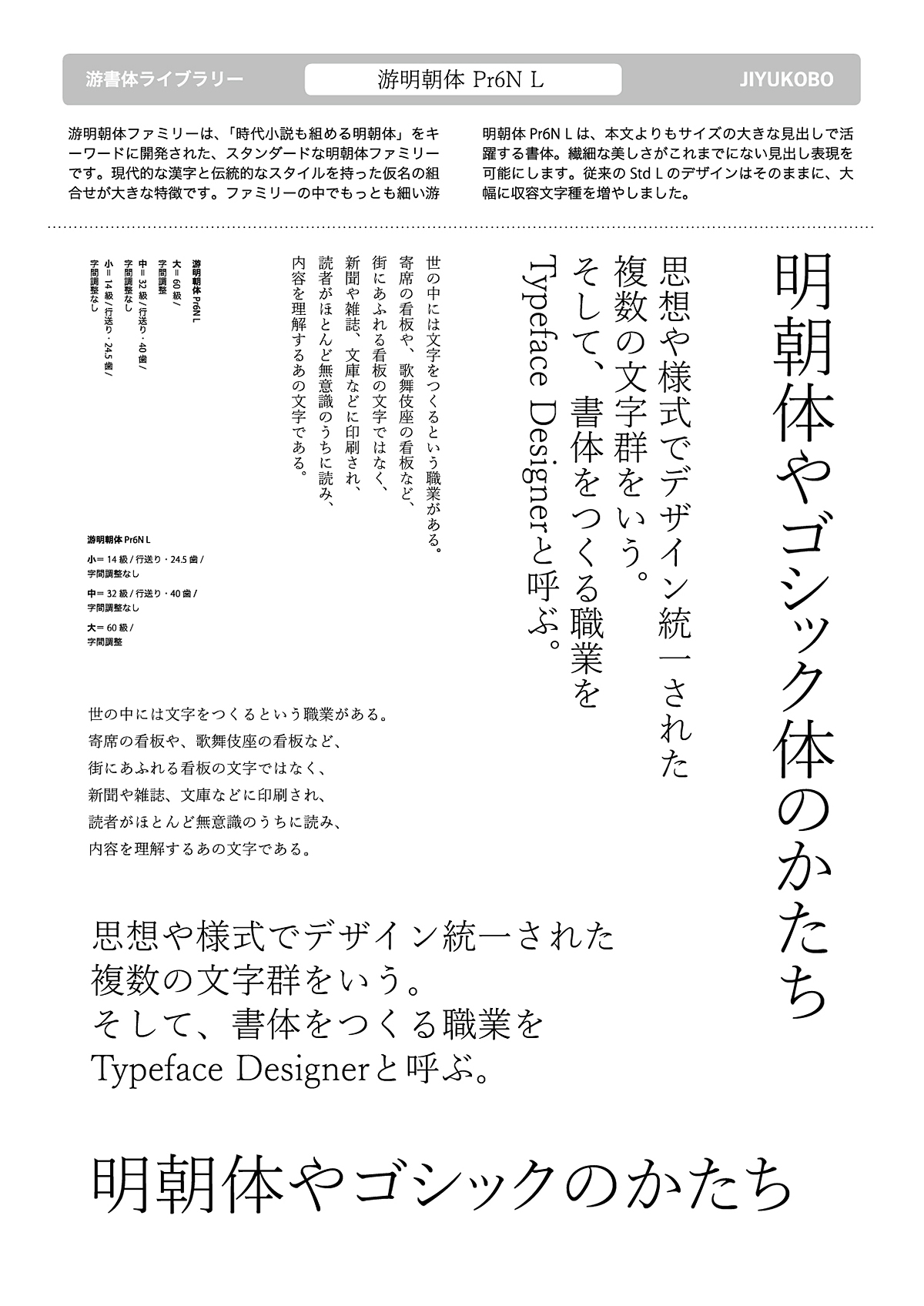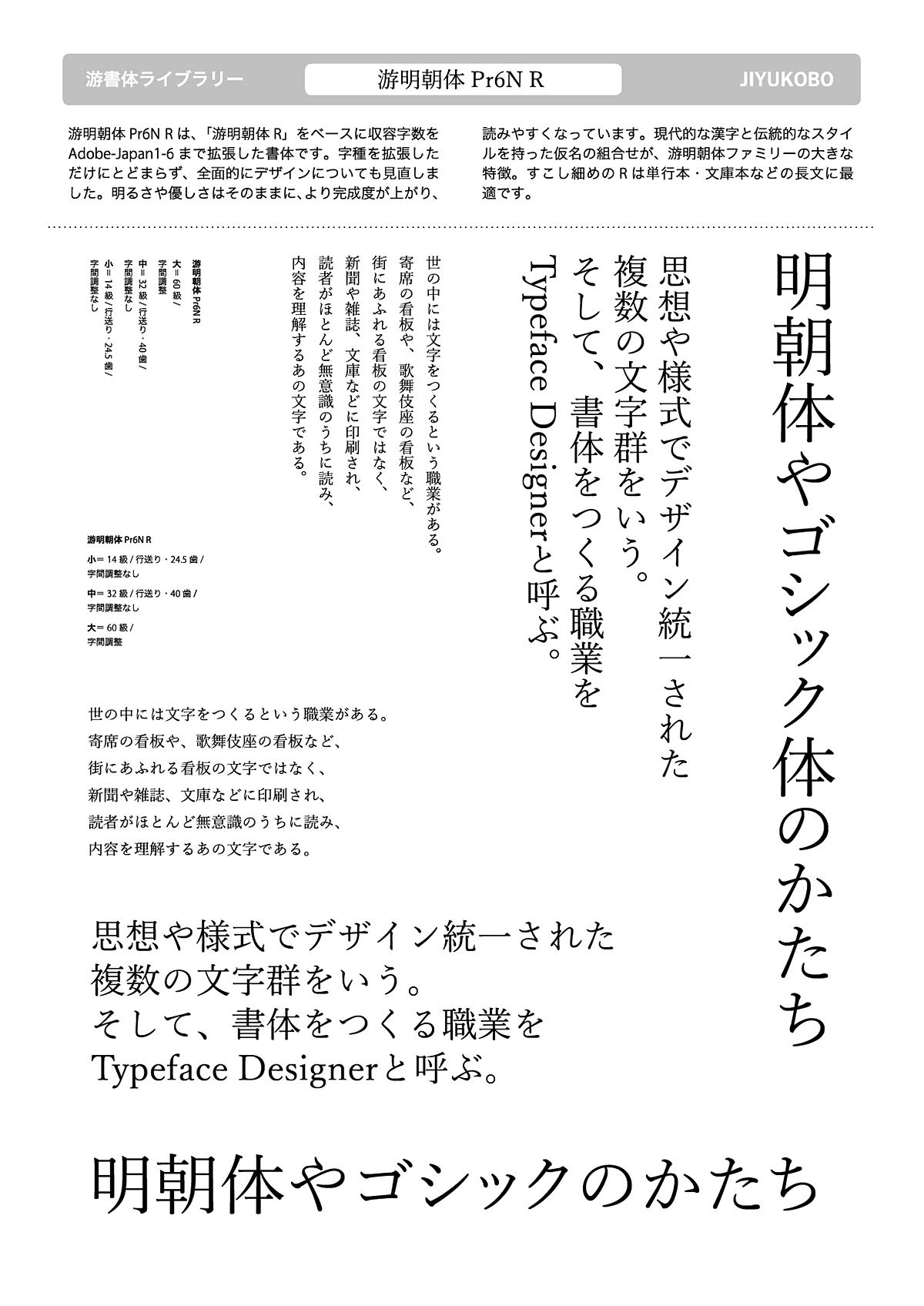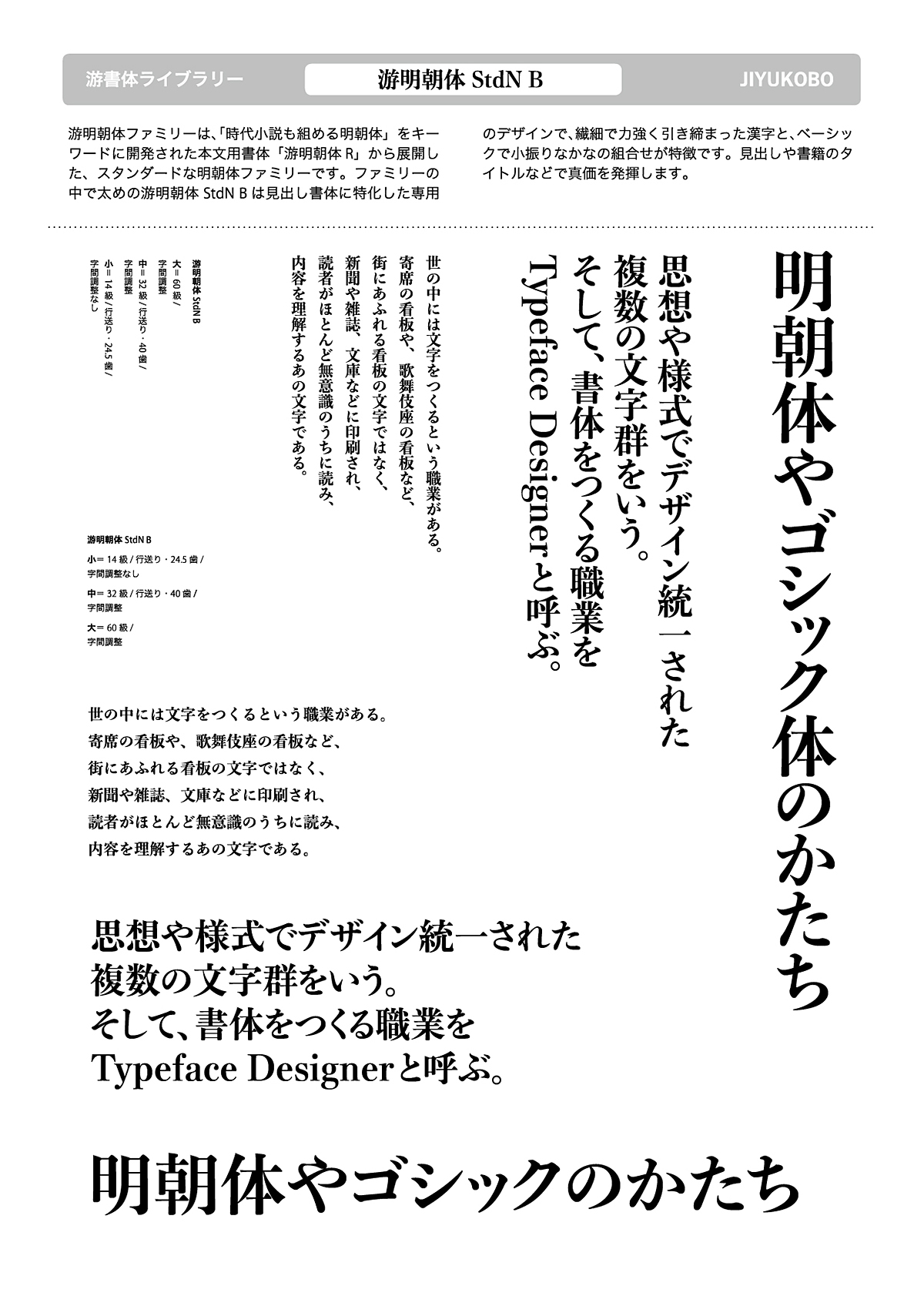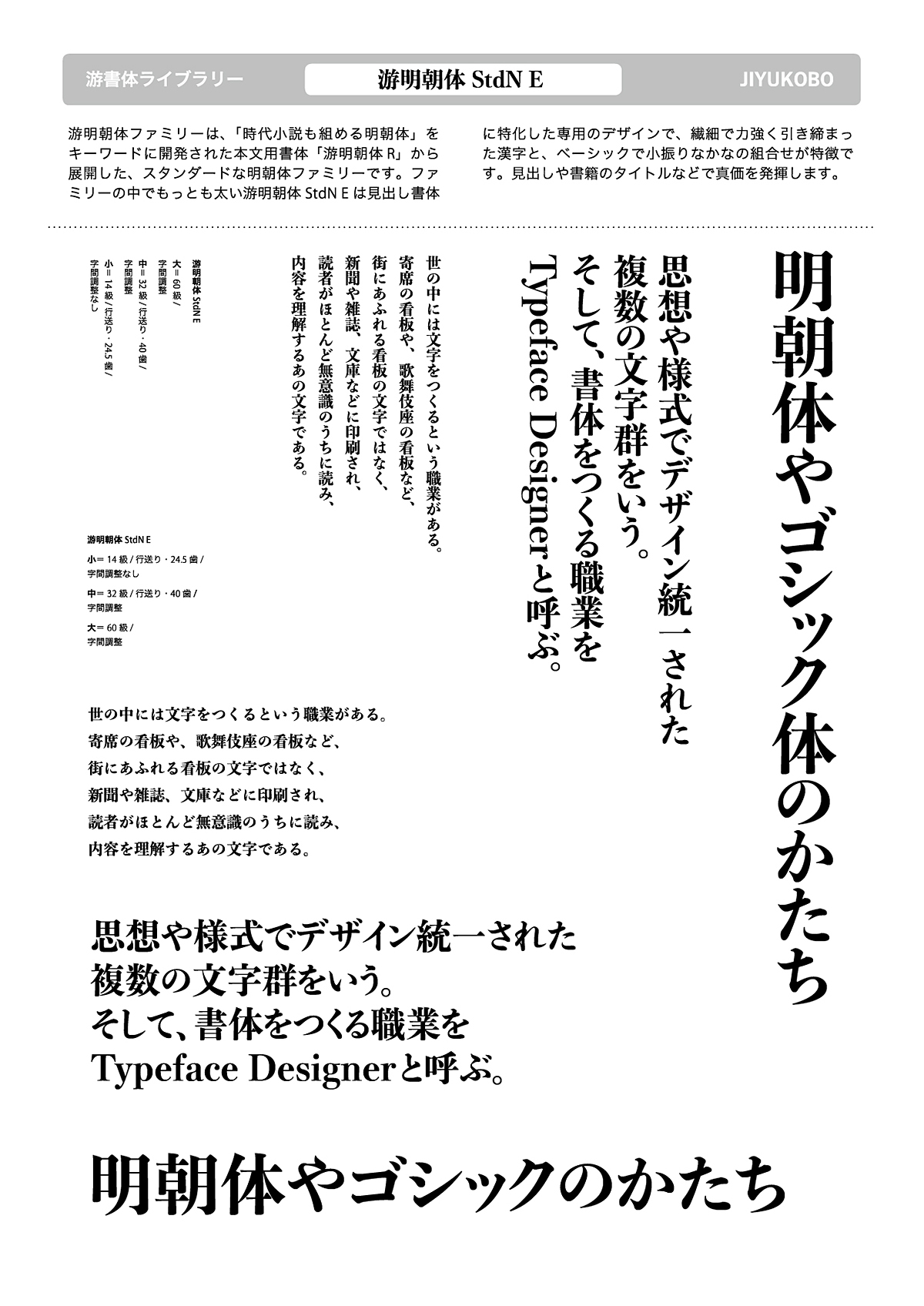
Yu Mincho
Yu Mincho is a subdued serif type family developed with the concept of a "serif for composing historical novels." Its balanced space between characters, rounded terminals, and soft curves create a clear and elegant look. The family comes in six weights from Light to Extra Bold. The Bold and Extra Bold have a different structure from that of other weights for use in headlines, with their smaller counters bringing the characters a more compact appearance.